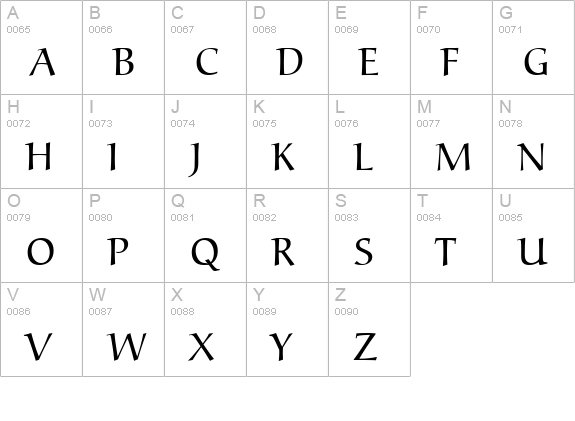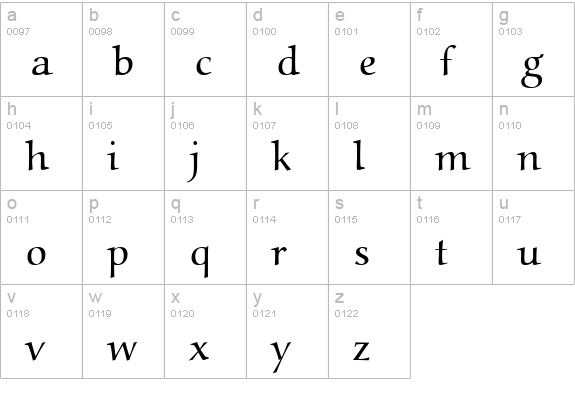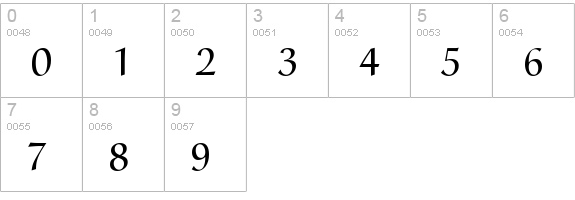
URWAlcuinTLig Font Details
URWAlcuinTLig is a stunning font that combines elegance with a touch of sophistication. Its delicate ligatures and graceful curves make it perfect for projects that require a refined and polished look. This font exudes a sense of classic beauty and timeless appeal. Not only does URWAlcuinTLig possess a breathtaking aesthetic, but it also offers the incredible advantage of being free. Yes, you read that right – this exceptional font is freely available to download at FontsMarket.com. Whether you are a designer looking to add a touch of elegance to your creations or a writer wanting to give your words a touch of refinement, URWAlcuinTLig is the ideal choice. With its clean lines and balanced proportions, URWAlcuinTLig is highly legible and easy on the eyes. It is suitable for a wide range of applications, such as branding, logo design, editorial work, invitations, and much more. The versatility of this font allows it to seamlessly adapt to various design styles and contexts. URWAlcuinTLig is designed with meticulous attention to detail, ensuring that each character is crafted with precision and finesse. The ligatures add an extra level of sophistication, giving your typography an exquisite and harmonious appearance. Downloading URWAlcuinTLig from FontsMarket.com is a breeze. Simply visit the website, locate the font, and click the download button. Within seconds, you will have this extraordinary font at your disposal, ready to elevate your designs and captivate your audience. So why wait? Take advantage of this incredible opportunity to enhance your creative endeavors with URWAlcuinTLig. Download it for free today and unlock a world of elegance and beauty.